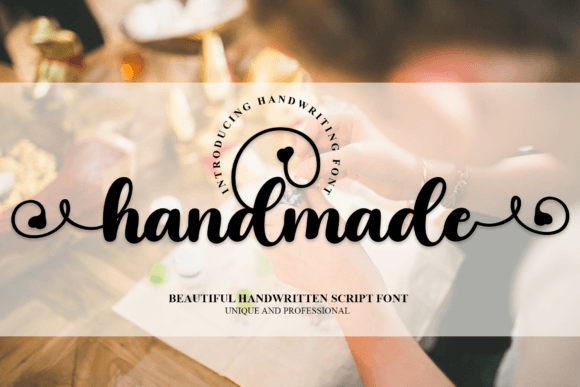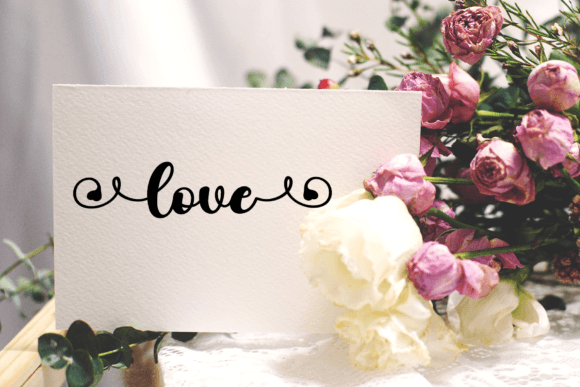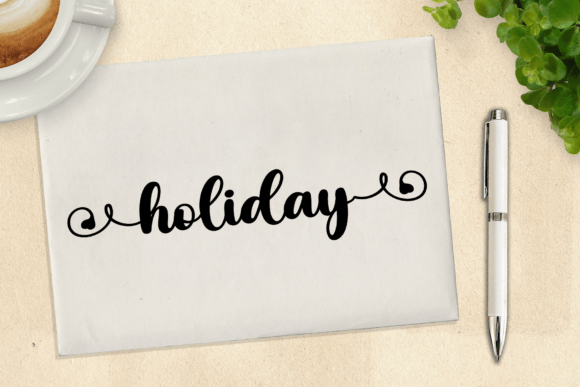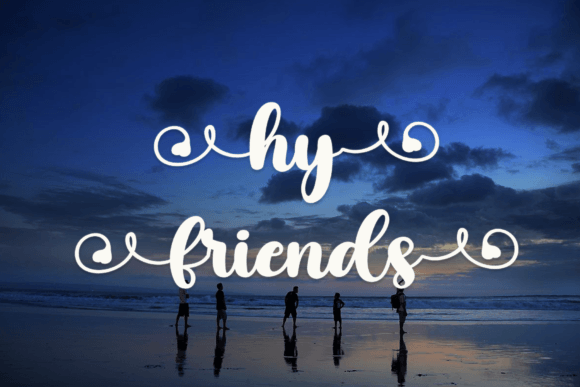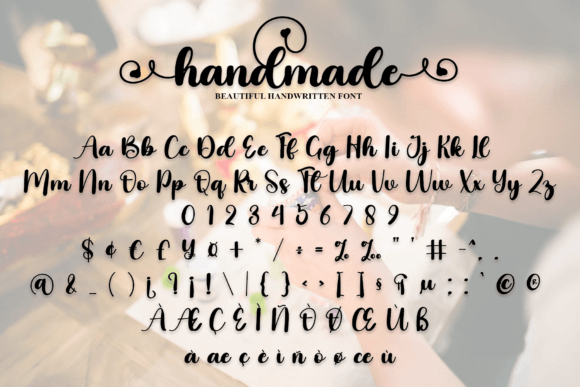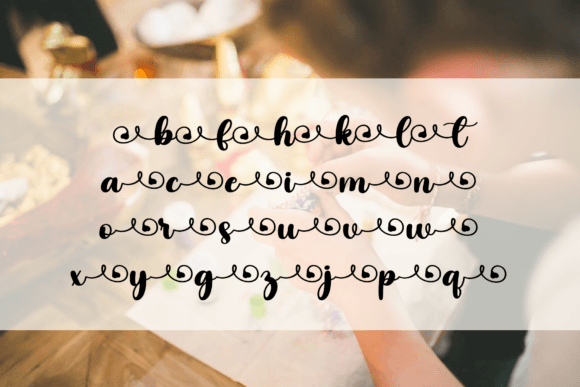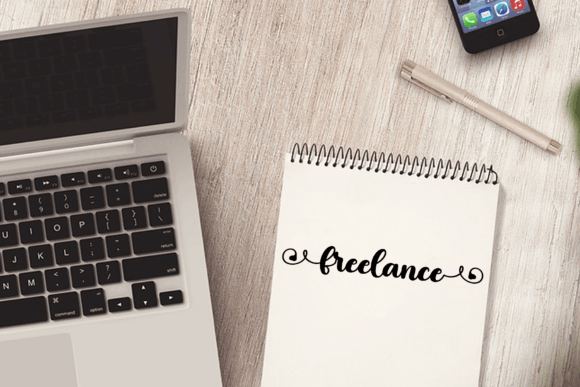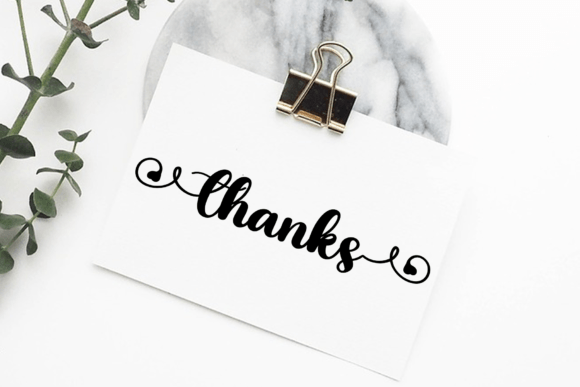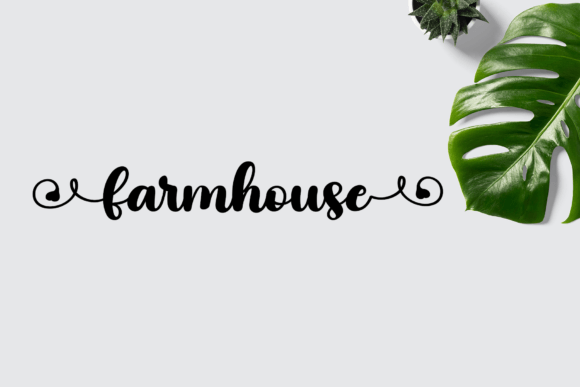
Handmade, an elegant and feminine typeface, is a perfect choice for various design applications, especially well-suited for headlines. With its refined design, it becomes an ideal option for wedding stationery, invitations, florist branding, packaging, and social media posts.
The allure of Handmade lies in its elegant and feminine characteristics. The typeface is crafted with precision, showcasing a design that exudes sophistication and a touch of romance. This makes it an excellent choice for projects that demand a certain level of grace and style.
Consider utilizing Handmade for wedding stationery, where the font’s elegance can enhance the romantic atmosphere of invitations, save-the-date cards, and other wedding-related materials. Its versatility extends to florists’ branding, packaging, and social media posts, where the typeface’s feminine appeal can beautifully complement floral designs and delicate aesthetics.
The adaptability of Handmade allows it to shine across various digital and print applications. Whether gracing the pages of a website or adding an elegant touch to physical materials, Handmade brings a level of sophistication that elevates the overall visual impact.
In essence, Handmade is not just a typeface; it’s a design asset that lends an elegant and feminine touch to your projects. Embrace its refined characteristics and let Handmade be the choice that adds a touch of romance and sophistication to your headlines, making them stand out with grace and style.